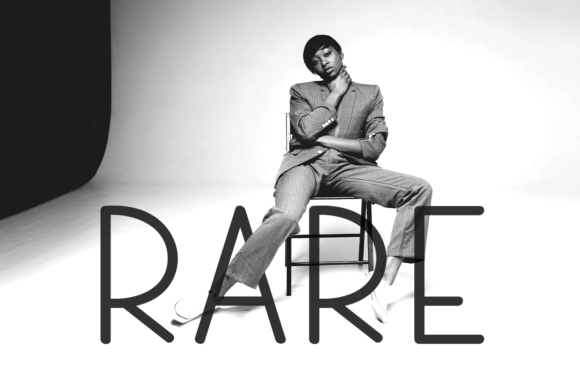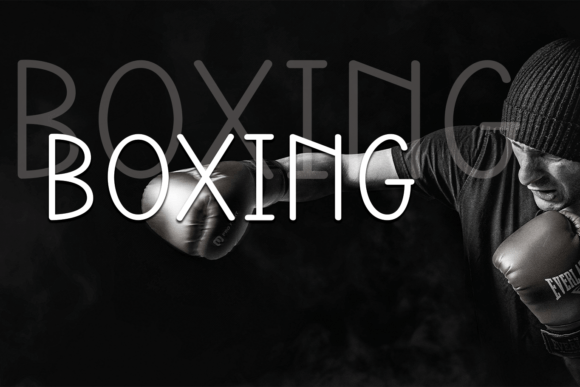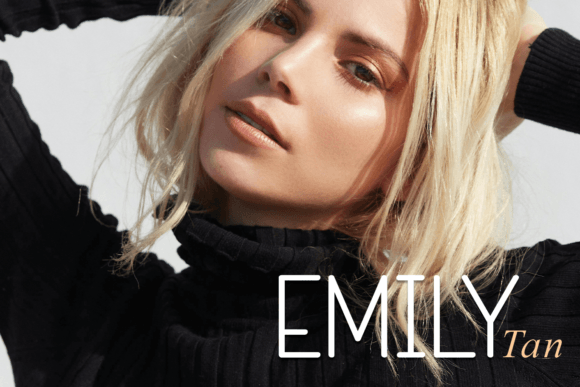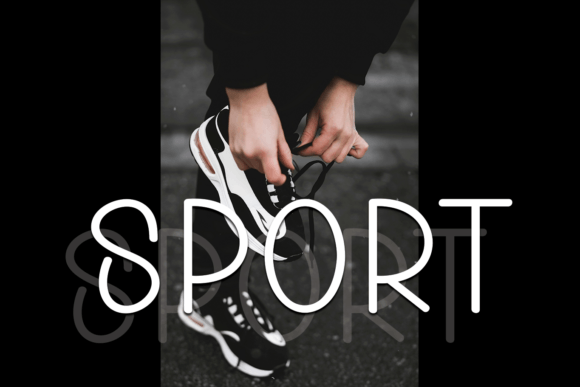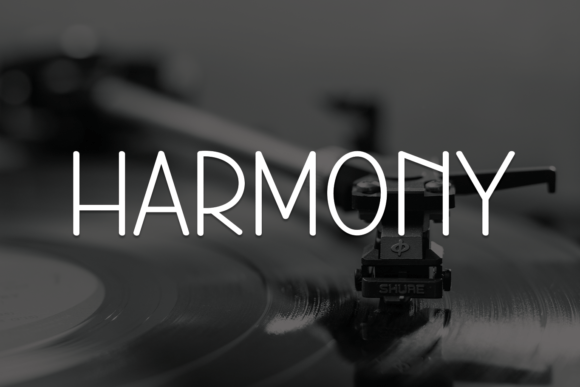
Introducing Harmony Font: The Ultimate Modern Sans Serif for Creative Projects
Are you on the hunt for a font that embodies modernity, freshness, and versatility? Look no further than Harmony Font, a stunning sans serif typeface designed to elevate your creative projects to new heights. Whether you’re a designer, craftsperson, or simply a DIY enthusiast, Harmony Font is the perfect companion for your artistic endeavors.
What is Harmony Font?
Harmony Font is a modern sans serif font that exudes a sense of elegance and sophistication. Its clean lines, precise curves, and balanced proportions make it an excellent choice for a wide range of applications, from advertising and headlines to blogs, logos, and branding. This beautiful, fresh font is specifically crafted to help you create visually appealing and cohesive designs that capture the attention of your audience.
Key Features of Harmony Font
- Modern sans serif design: Harmony Font boasts a sleek and contemporary sans serif style that ensures your designs look up-to-date and trendy.
- Clean and legible: The font’s clear and precise letterforms guarantee excellent readability, making it suitable for body text, headings, and titles.
- Versatile and adaptable: Harmony Font can be used across various mediums, including print, digital, and web design, allowing you to maintain consistency across your brand’s visual identity.
- Easy to pair: Harmony Font’s neutral and balanced design makes it effortless to pair with other fonts, giving you the flexibility to experiment with different typography combinations.
Use Cases for Harmony Font
Harmony Font’s versatility knows no bounds, making it an excellent addition to your font library. Here are some of the many use cases for this fantastic font:
- Advertising and marketing materials: Create eye-catching headlines, slogans, and taglines that grab attention and leave a lasting impression.
- Branding and logos: Establish a strong visual identity for your brand with Harmony Font’s clean and modern aesthetic.
- Blogs and websites: Enhance your online presence with Harmony Font’s excellent readability and legibility, making it perfect for body text and headings.
- Social media graphics: Elevate your social media game with Harmony Font’s fresh and engaging style, ideal for creating engaging graphics, posts, and stories.
Why Choose Harmony Font?
In a world where typography plays a crucial role in visual communication, Harmony Font stands out from the crowd. Here are some compelling reasons to choose Harmony Font for your next project:
- Unique and distinctive: Harmony Font’s modern sans serif design sets it apart from more traditional fonts, giving your designs a fresh and unique look.
- High-quality and precise: The font’s precise curves and clean lines ensure a high level of quality, making it perfect for professional designs.
- Time-saving and efficient: With Harmony Font, you can quickly create stunning designs without spending hours searching for the perfect font or tweaking typography settings.
In conclusion, Harmony Font is an exceptional modern sans serif font that offers a perfect blend of style, versatility, and functionality. Whether you’re a designer, craftsperson, or DIY enthusiast, this beautiful font is sure to become a staple in your creative toolkit. With its clean design, excellent readability, and adaptability, Harmony Font is the ultimate choice for a wide range of applications. So why wait? Discover the power of Harmony Font and take your creative projects to new heights!